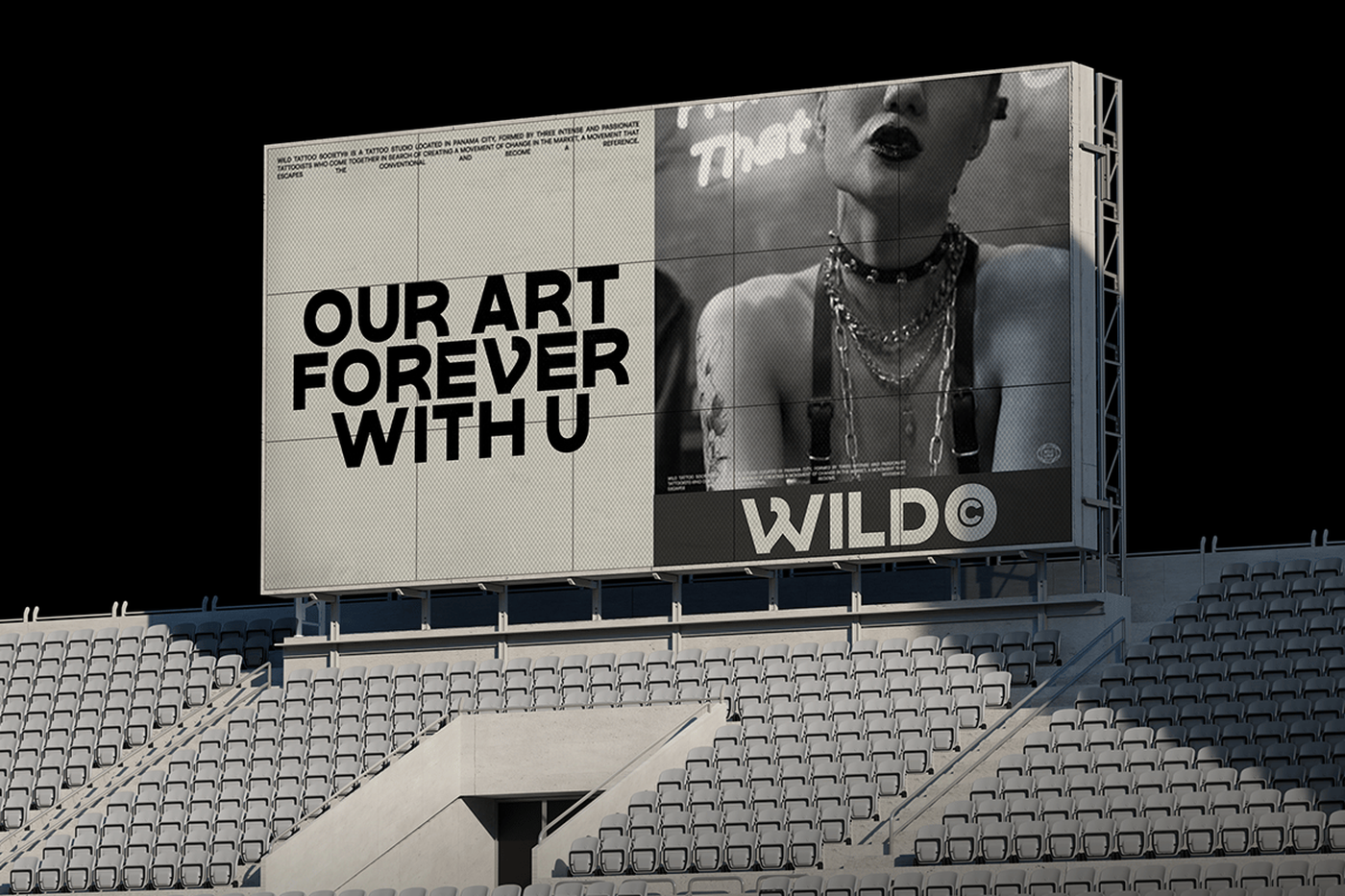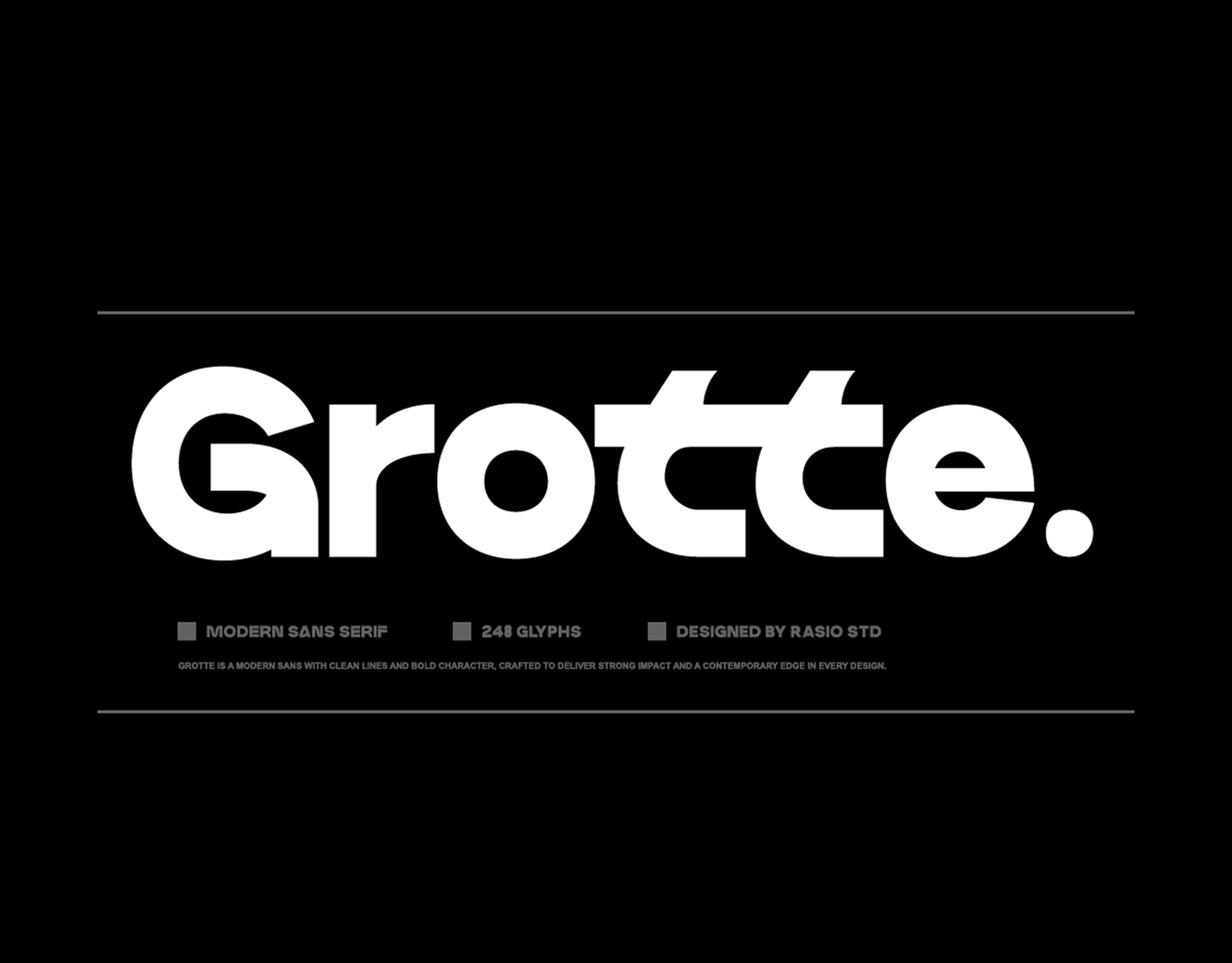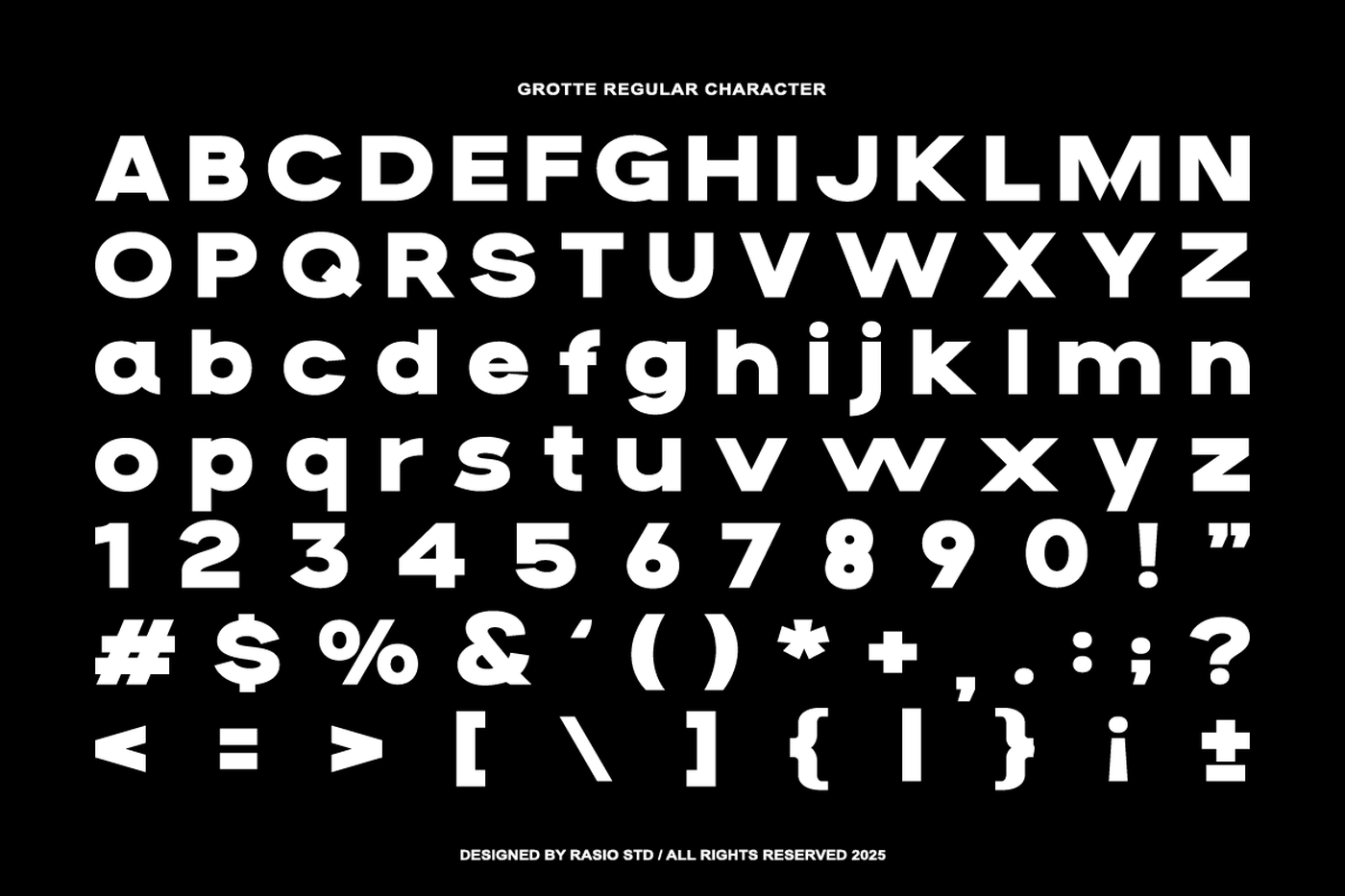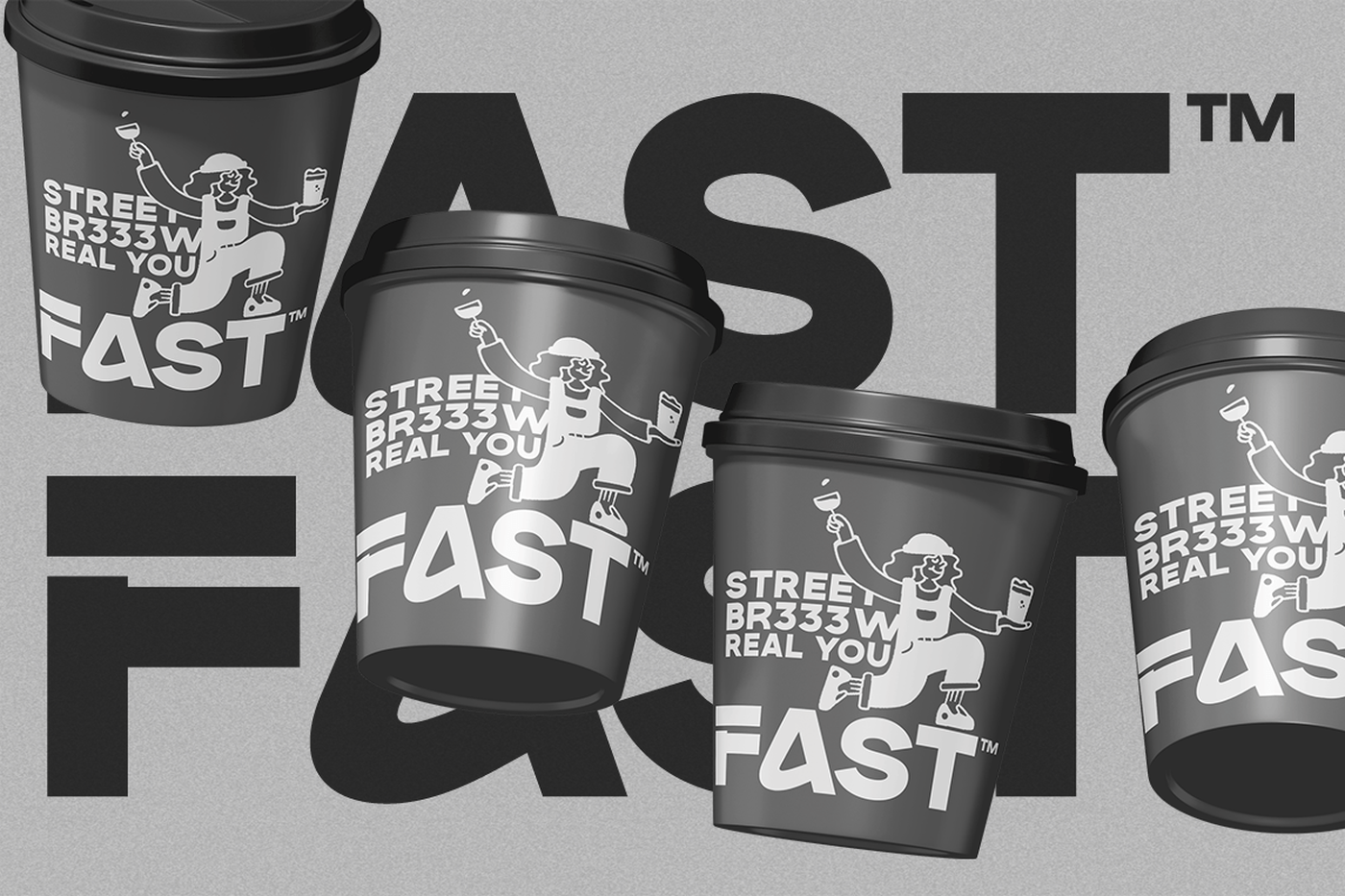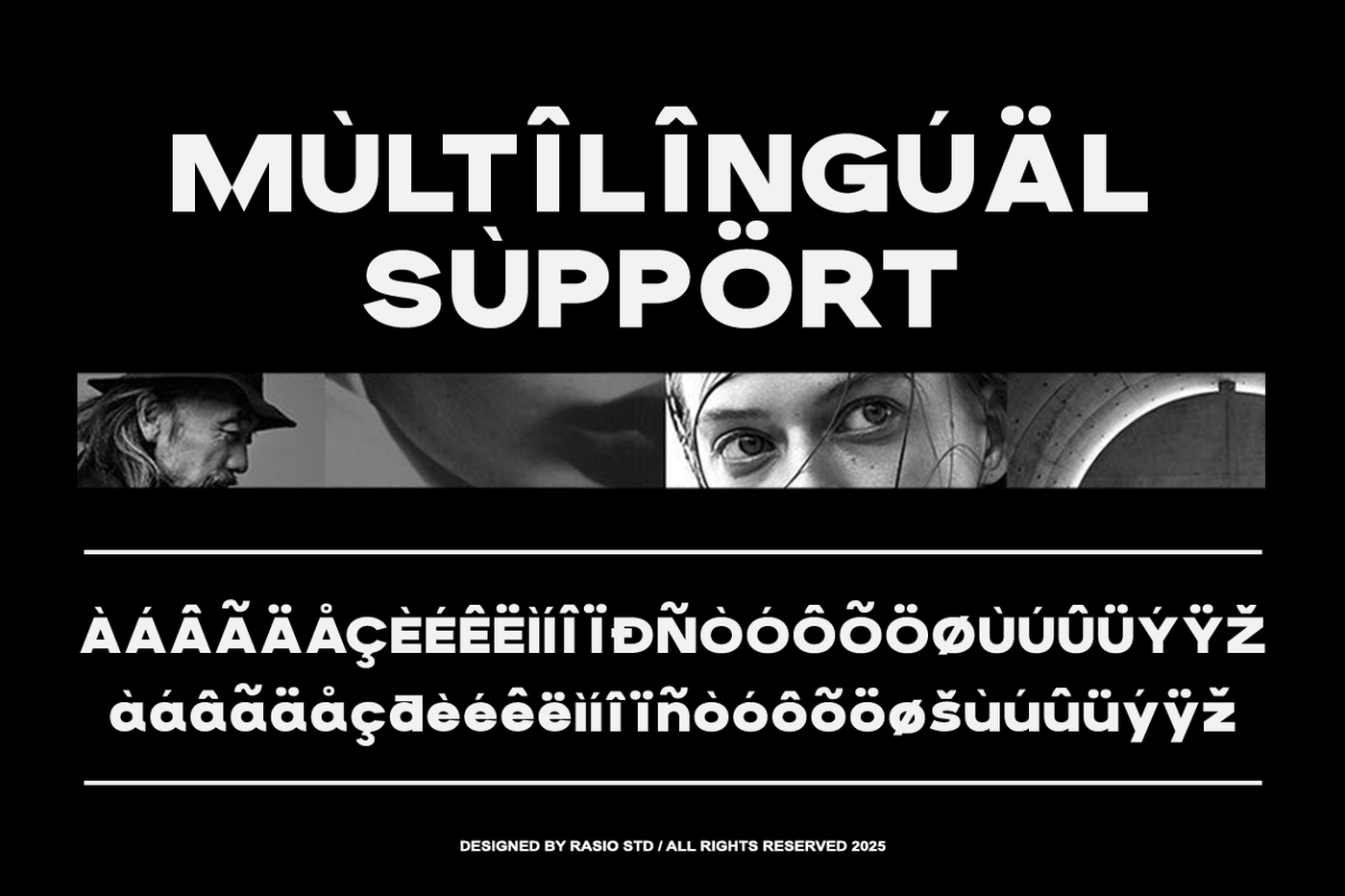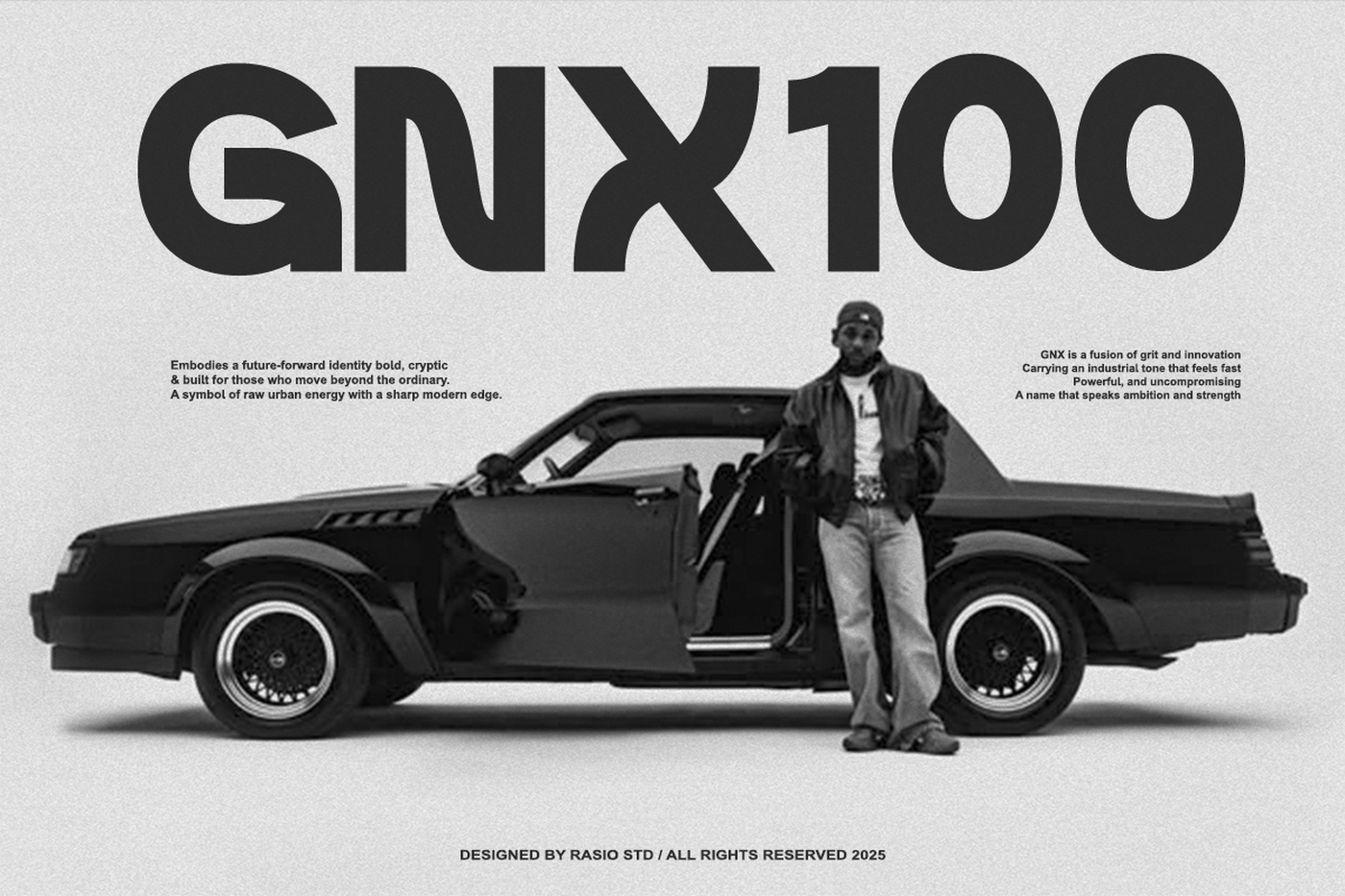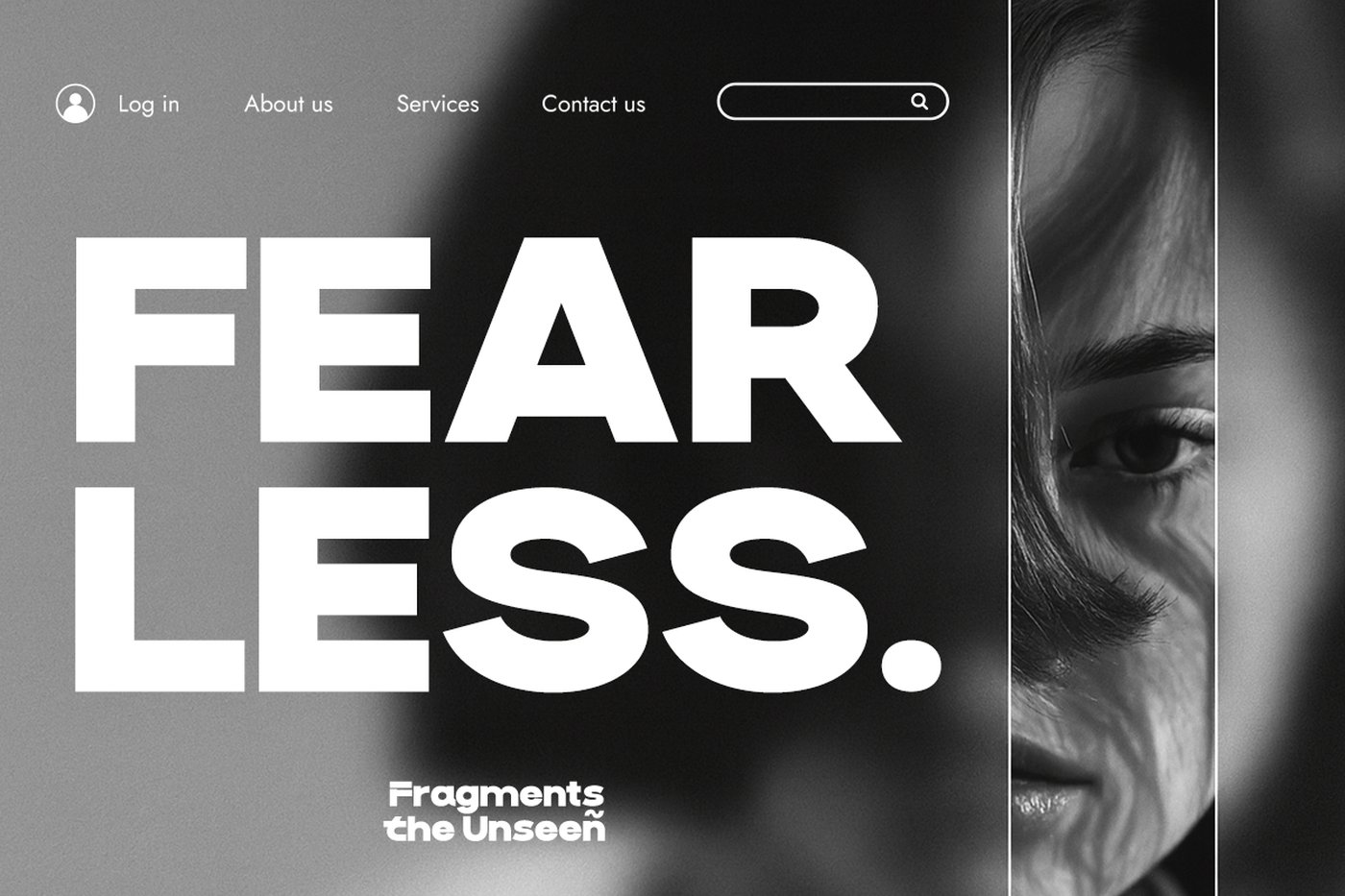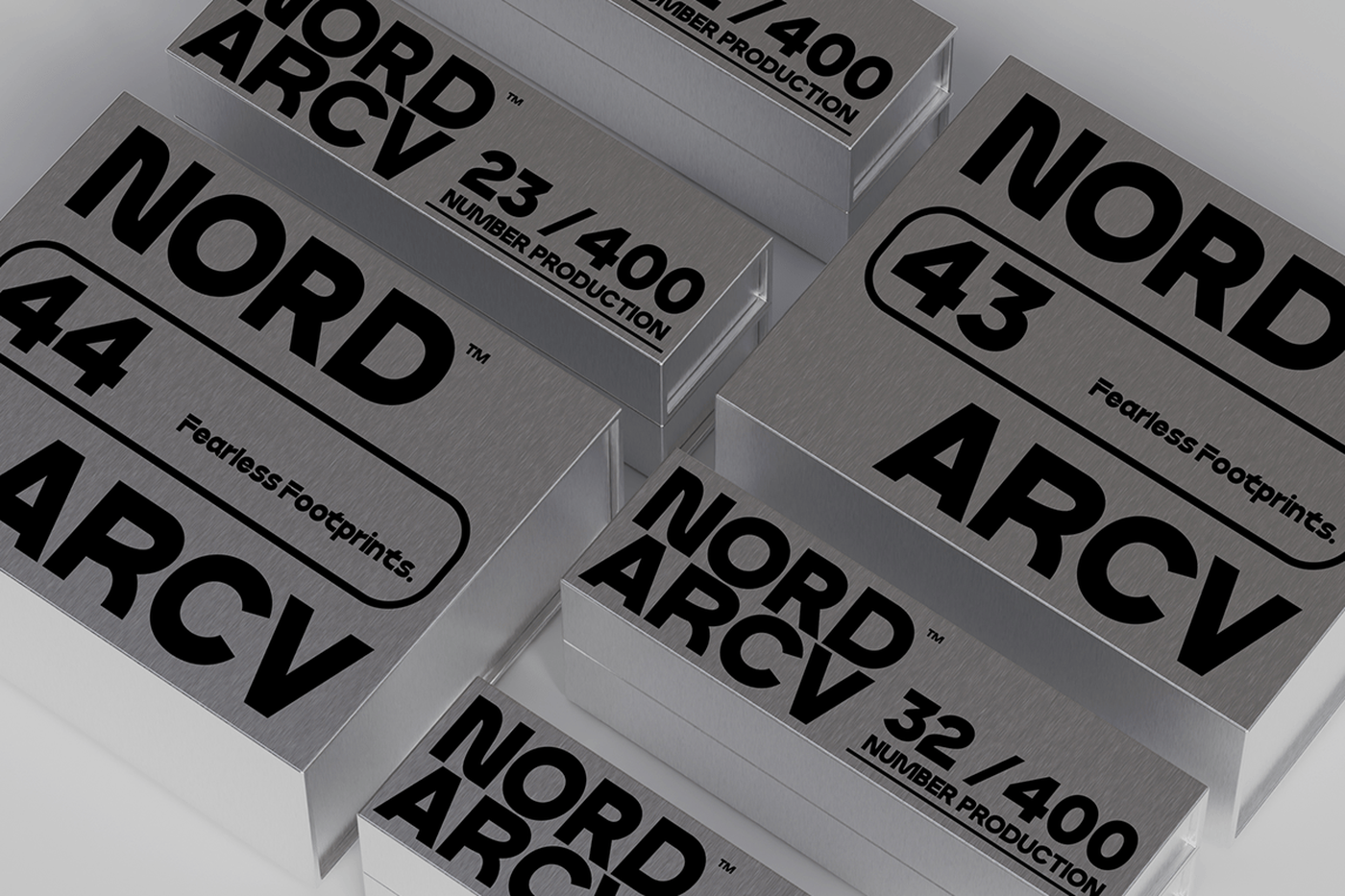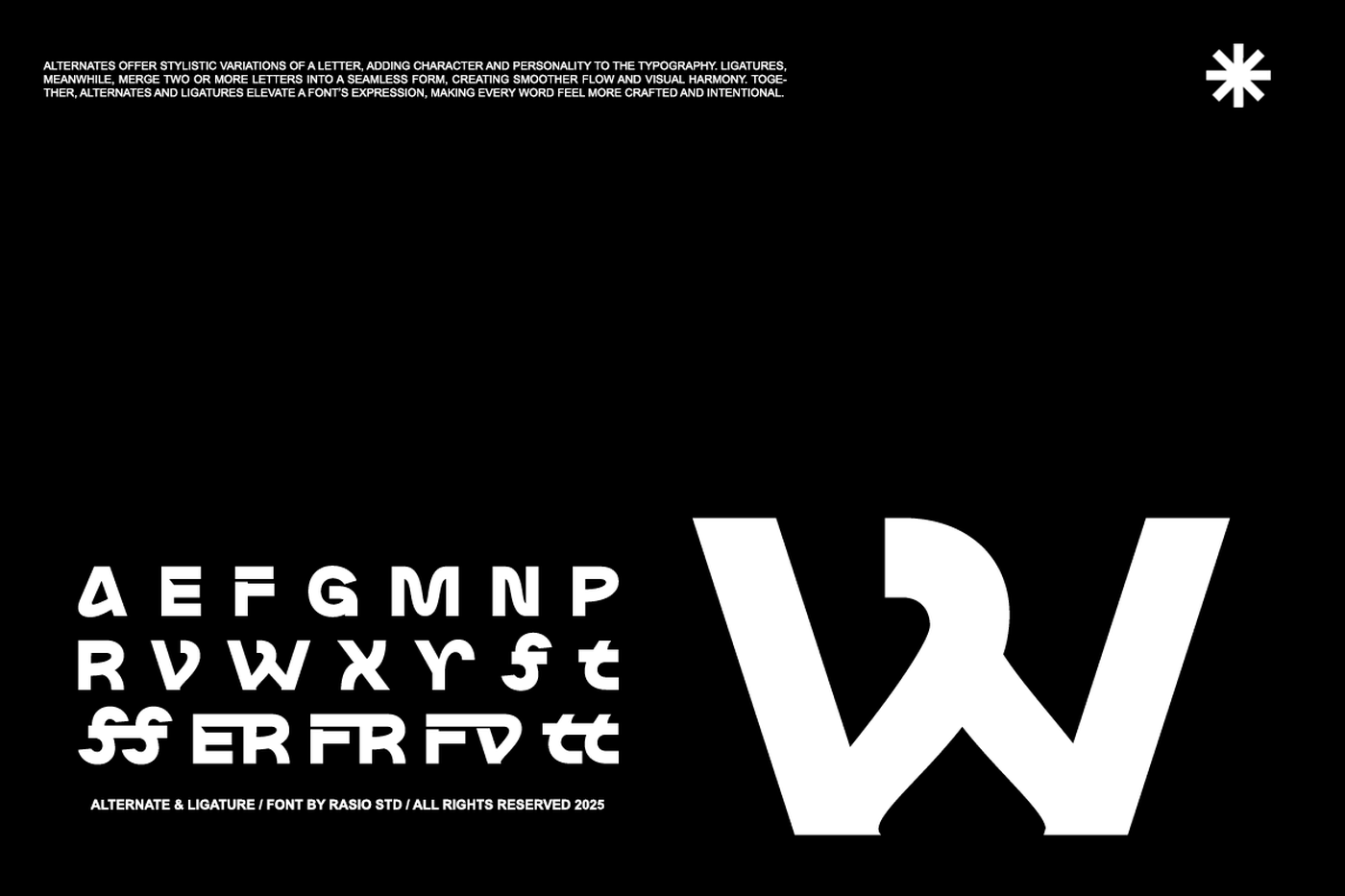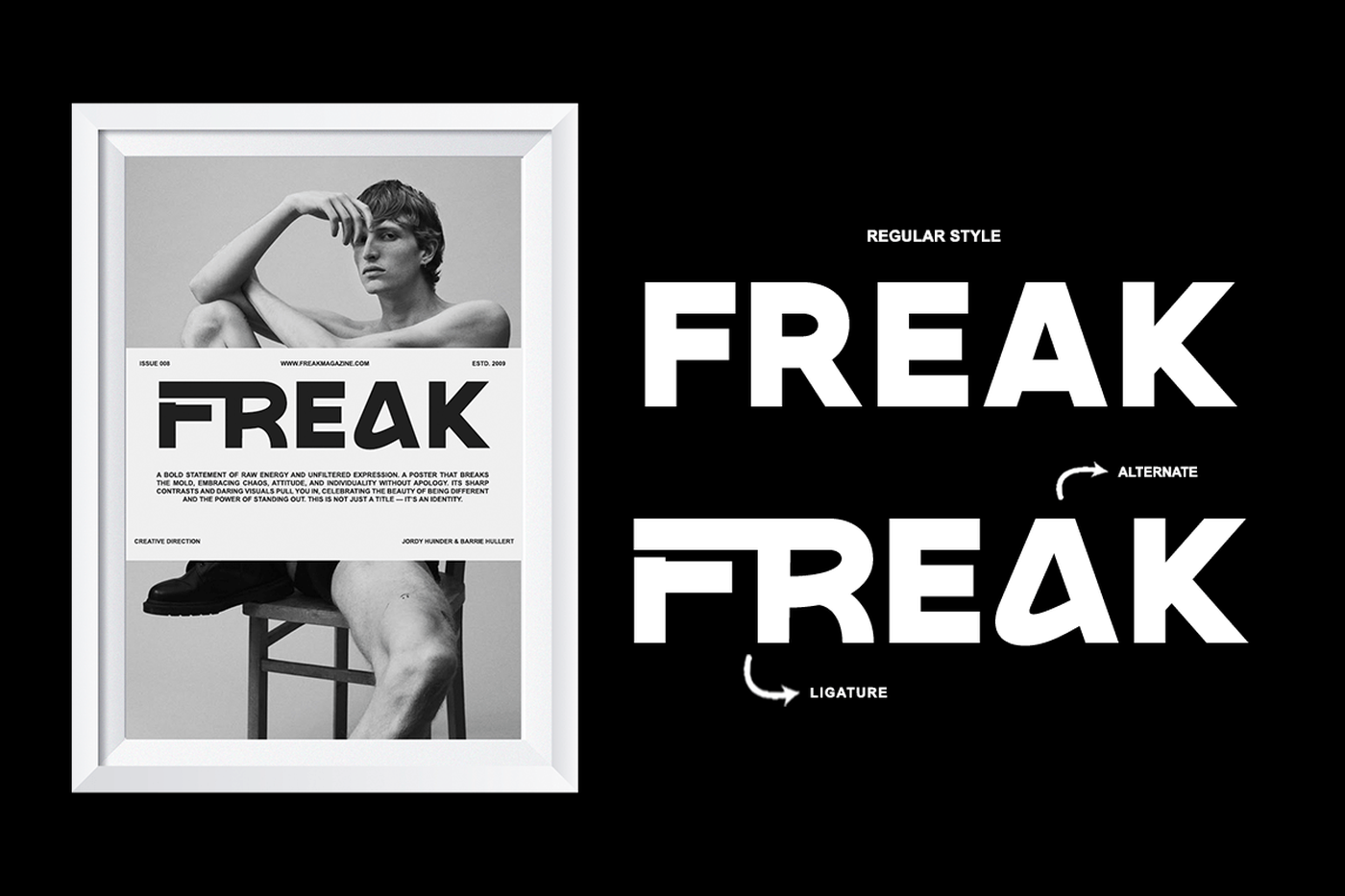
Grotte - Modern Sans Serif Font
Grotte is a striking modern geometric sans serif typeface crafted to deliver strong visual impact and contemporary edge across diverse design applications. With clean lines, bold proportions, and distinctive alternate letterforms, Grotte balances readability with personality perfect for designers seeking a modern yet expressive sans serif. This font includes a full character set with uppercase and lowercase letters, numerals, punctuation, stylistic alternates, and ligatures that elevate its creative possibilities. Engineered with a geometric backbone and uniform stroke weight, Grotte offers clarity and presence in both large display headlines and smaller text settings. Its carefully optimized spacing and consistent rhythm promote visual harmony and ease of use across print and digital media.